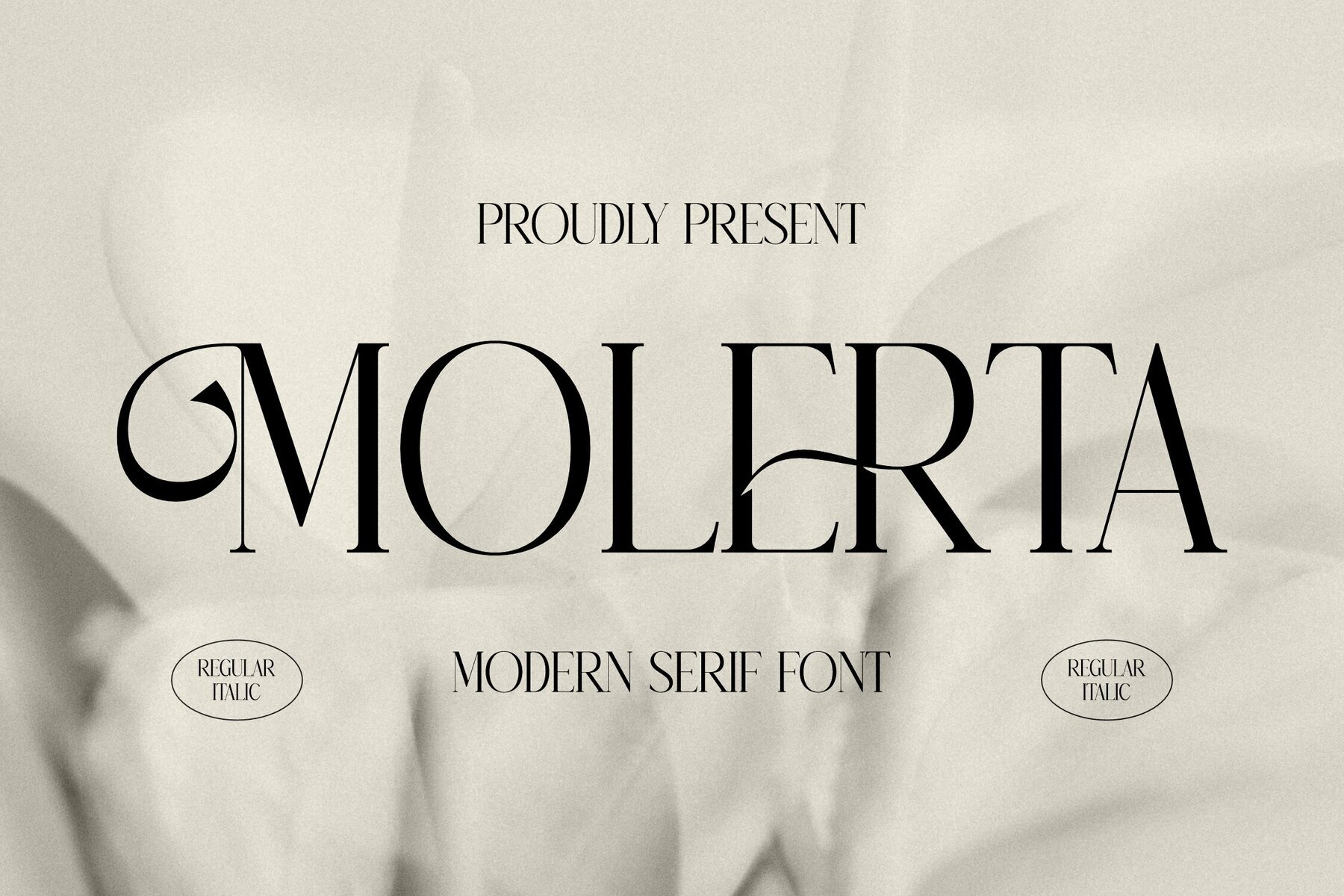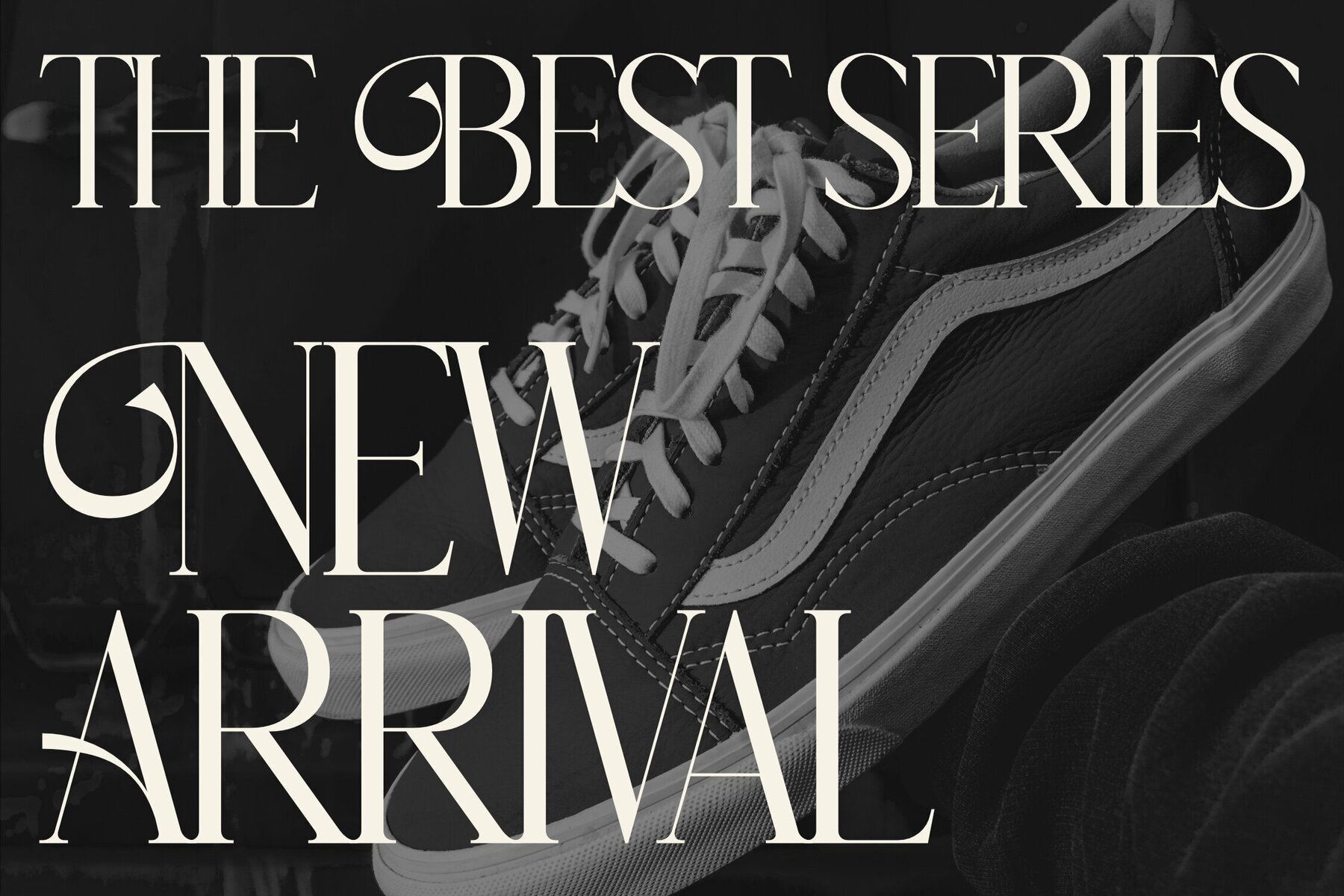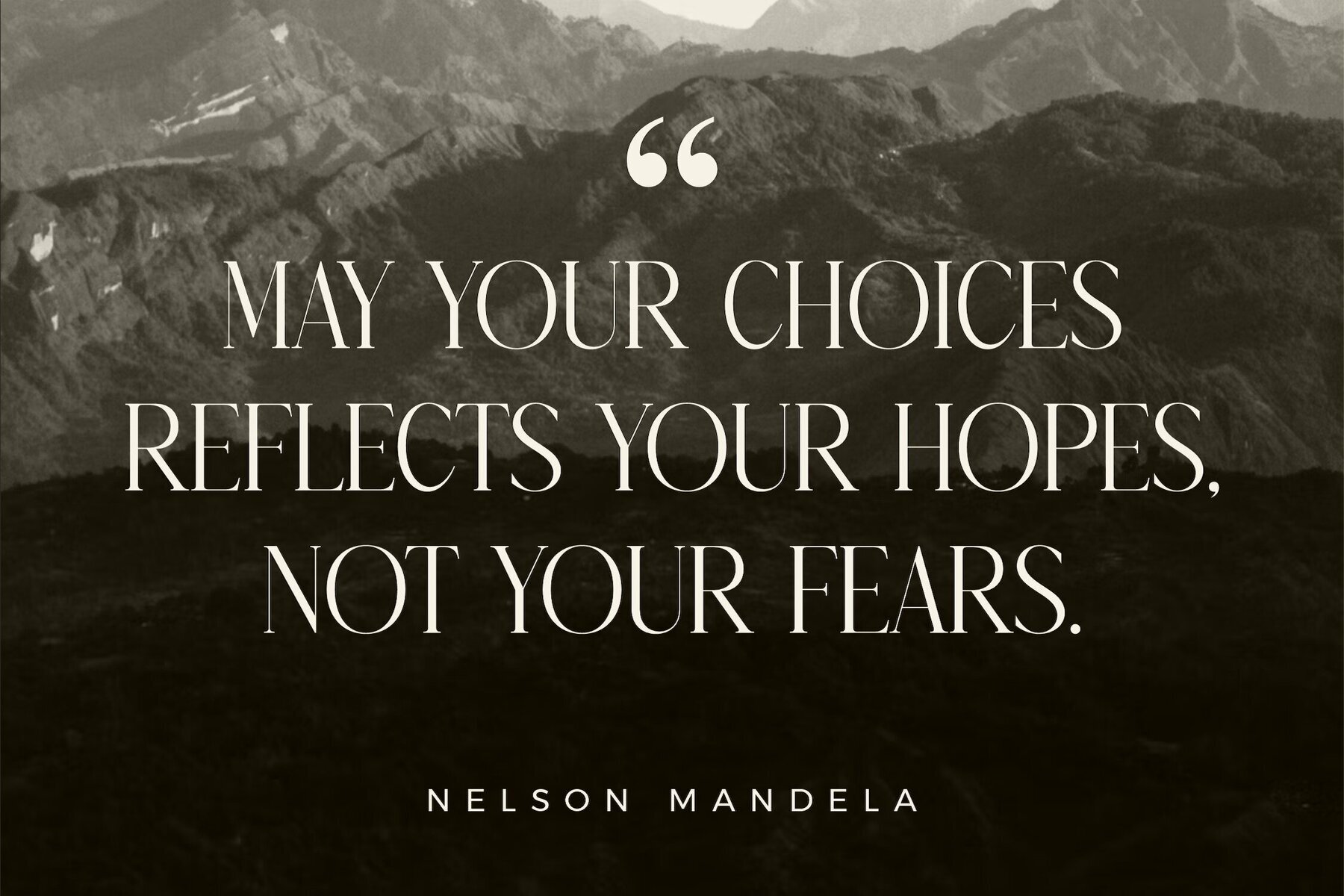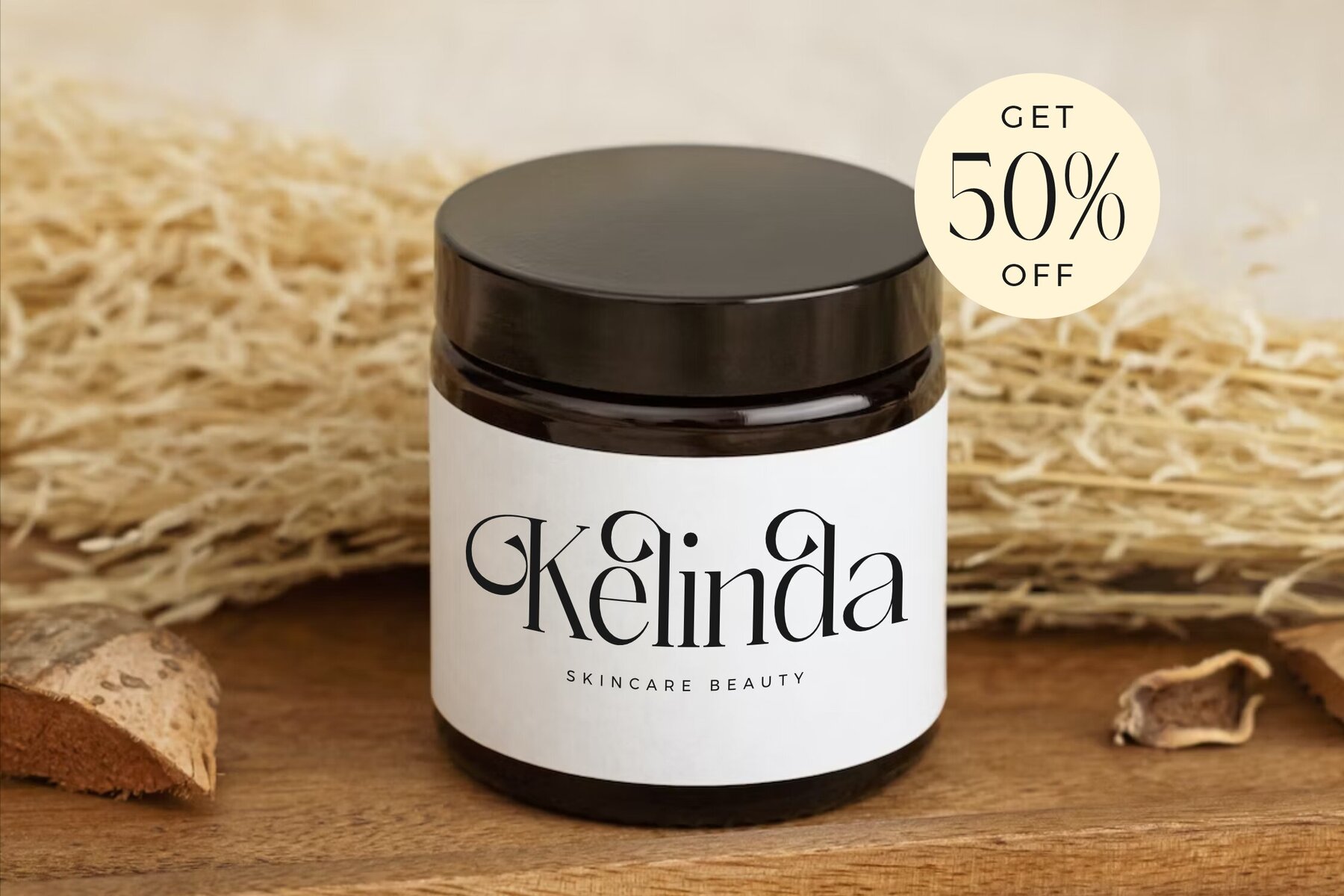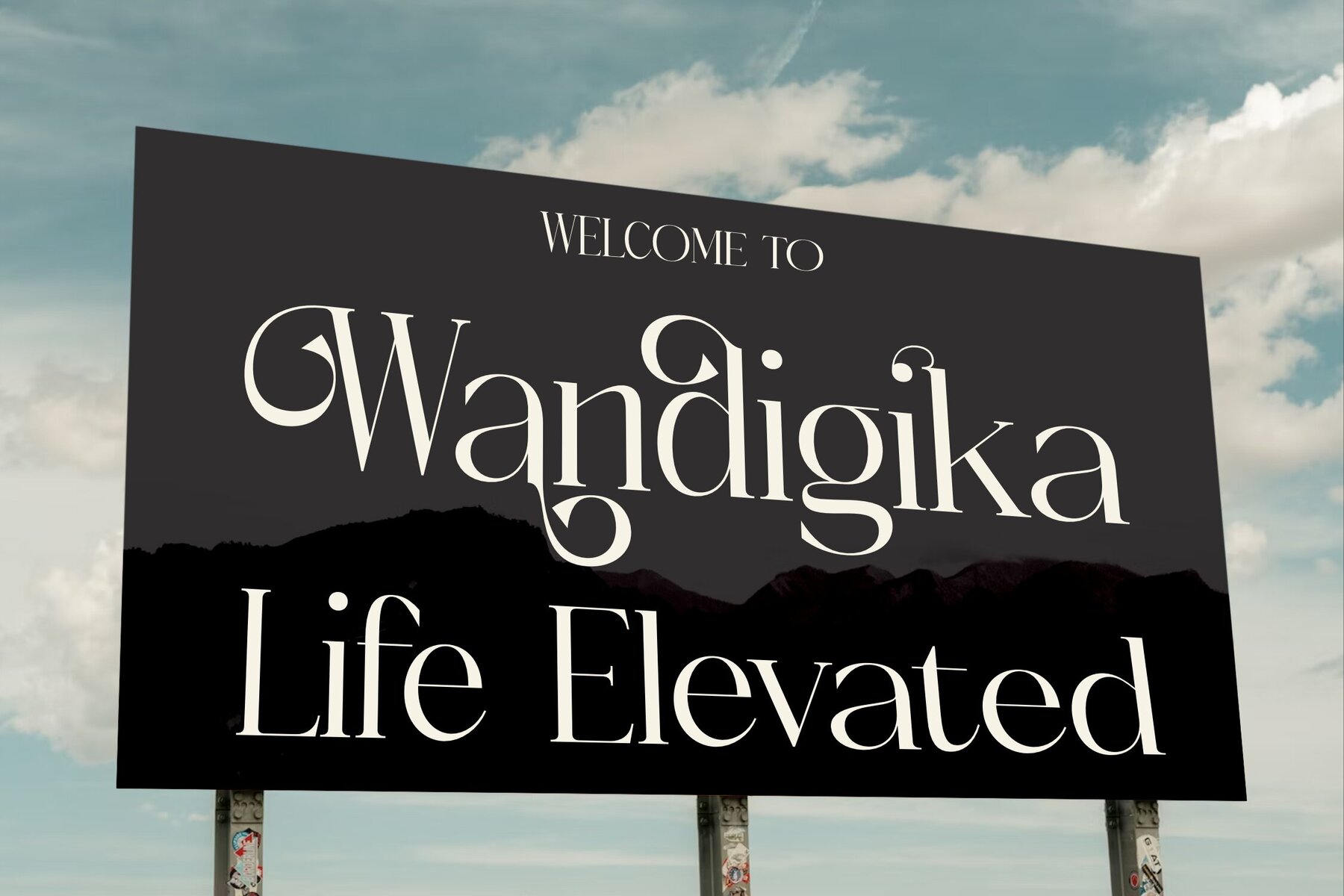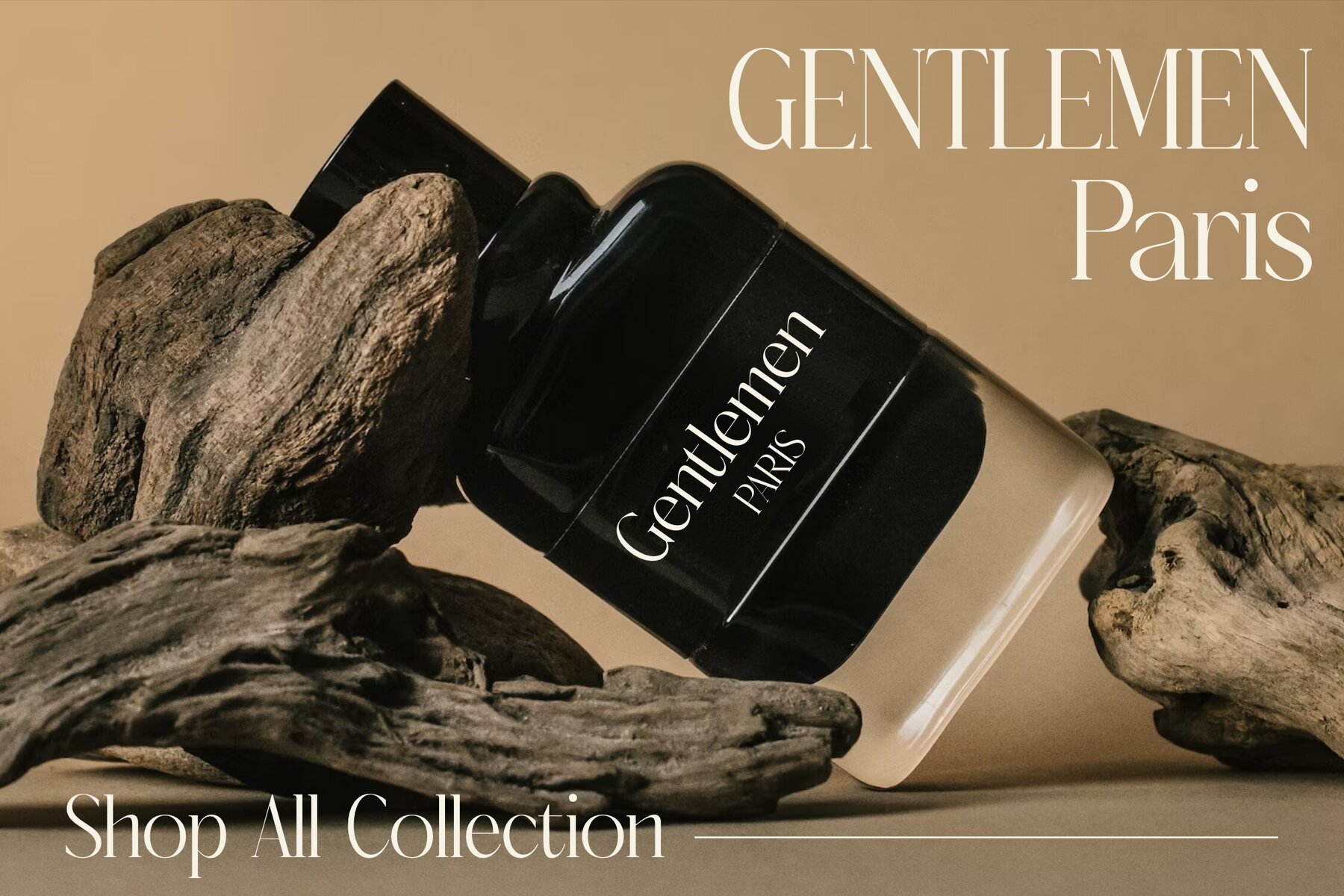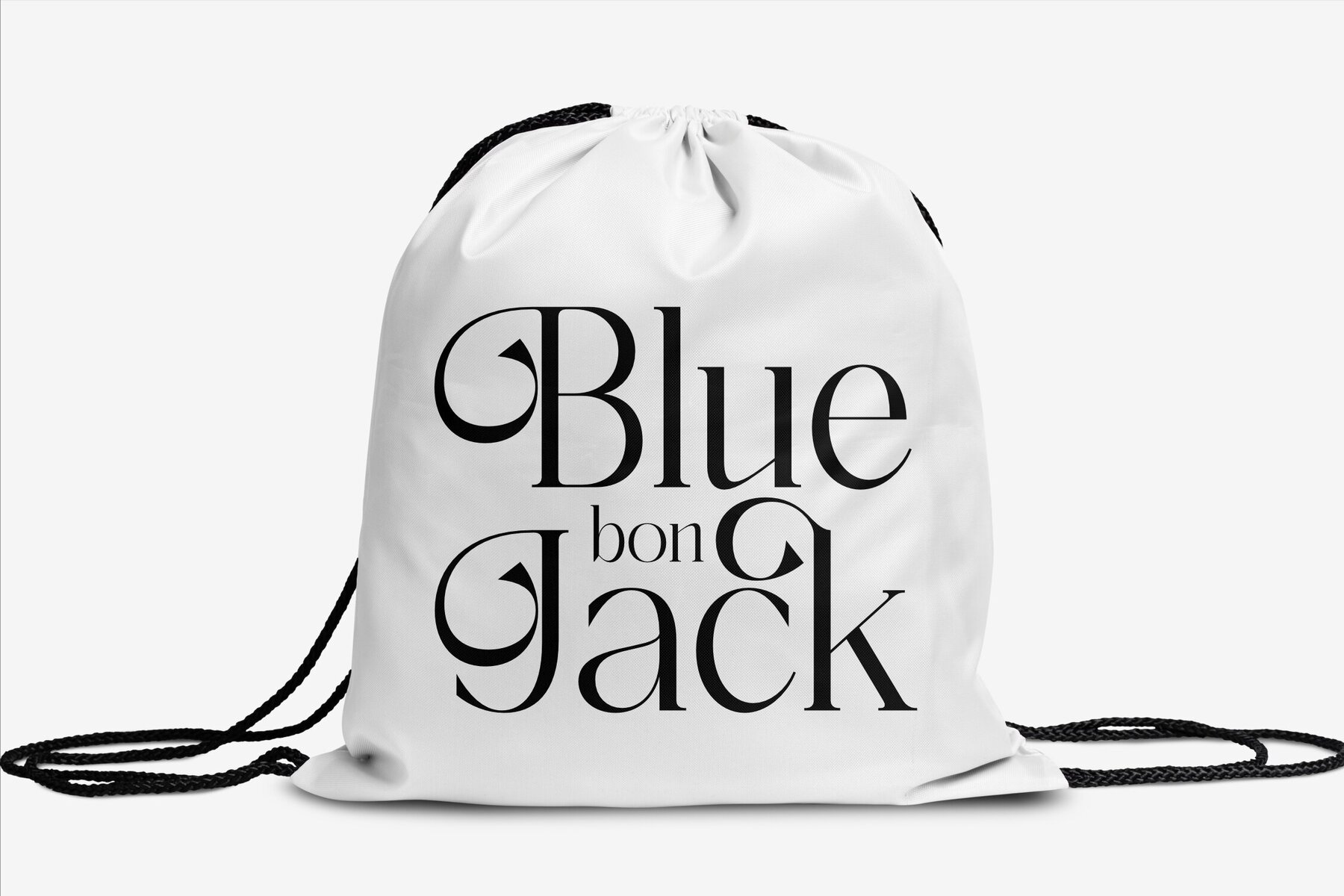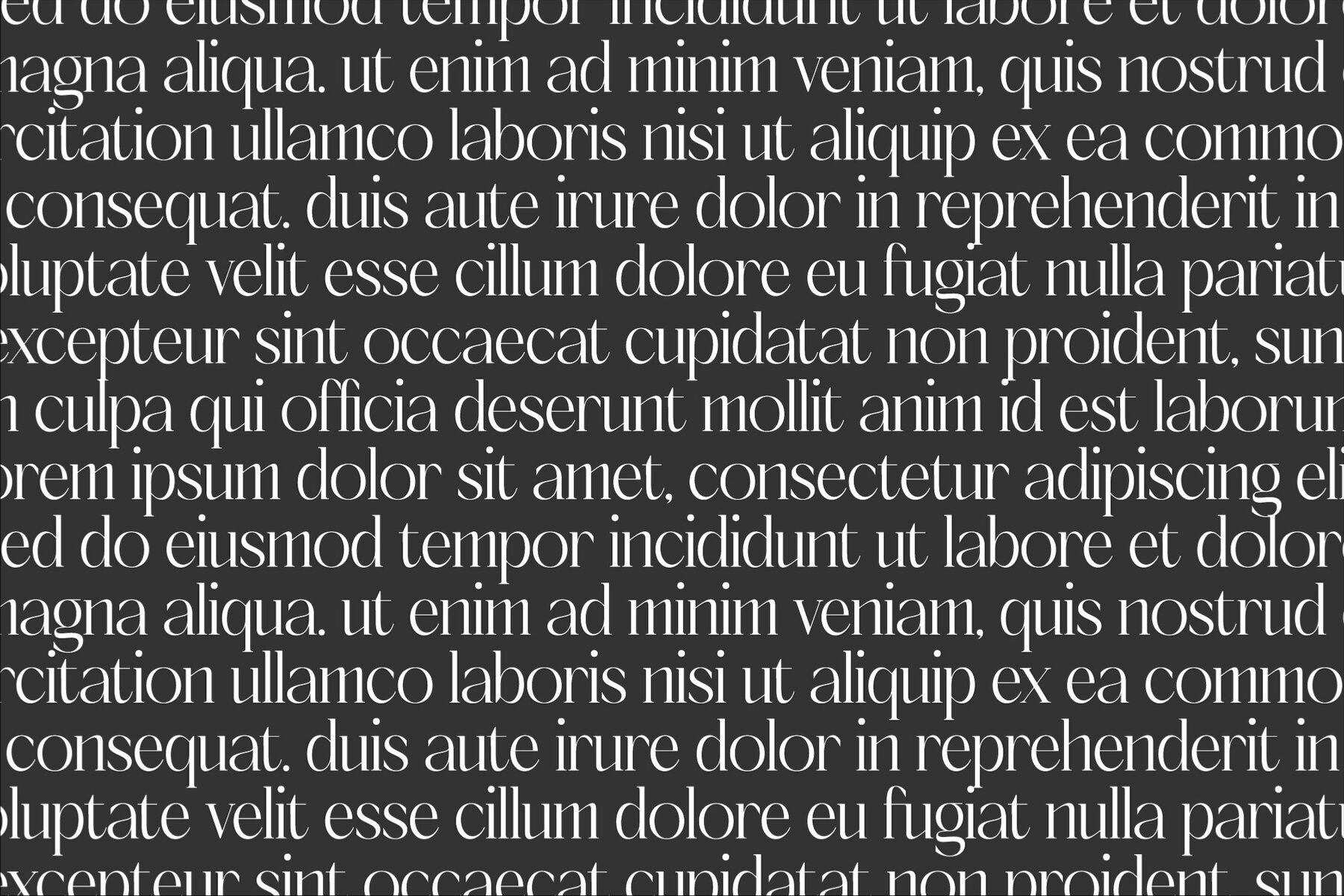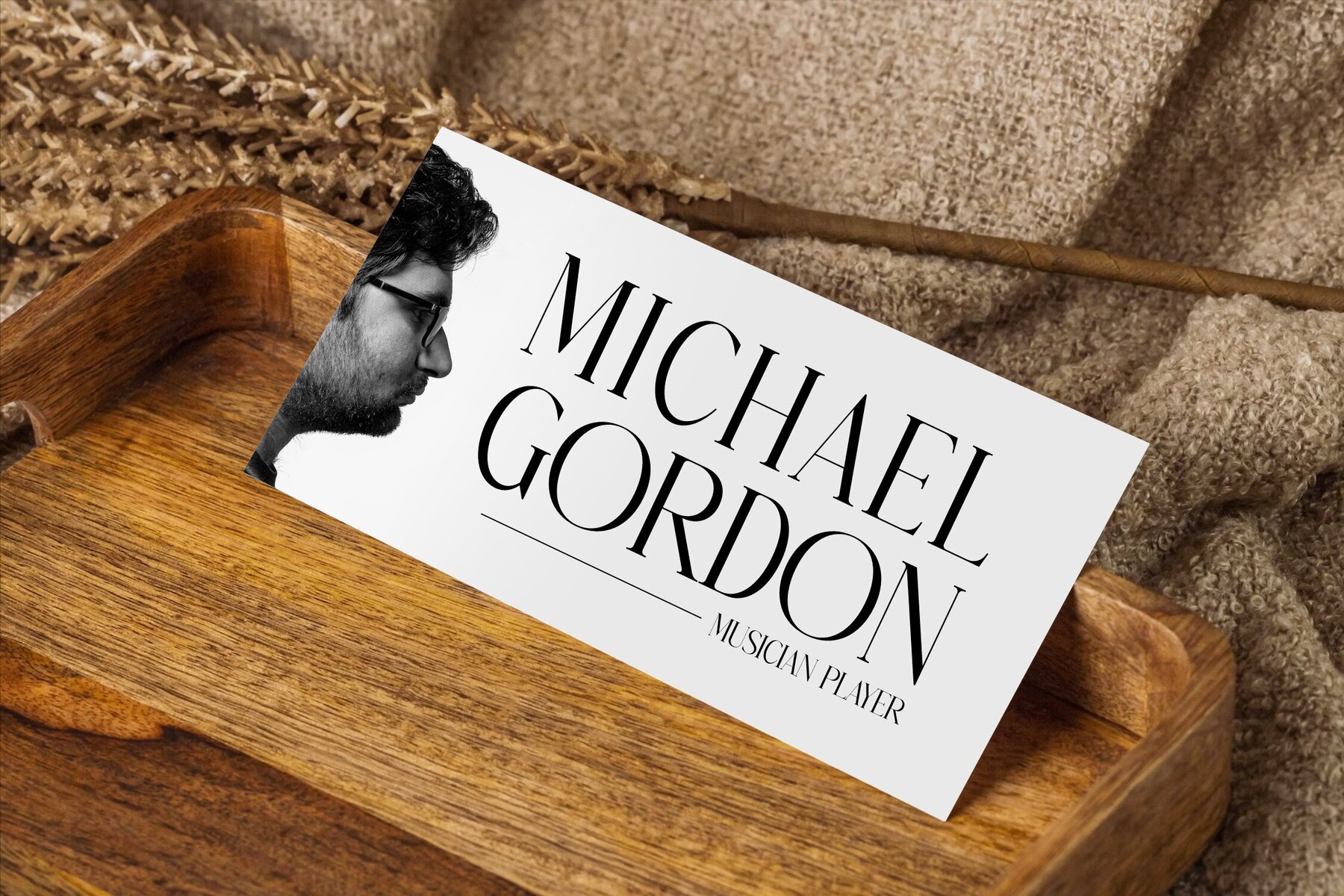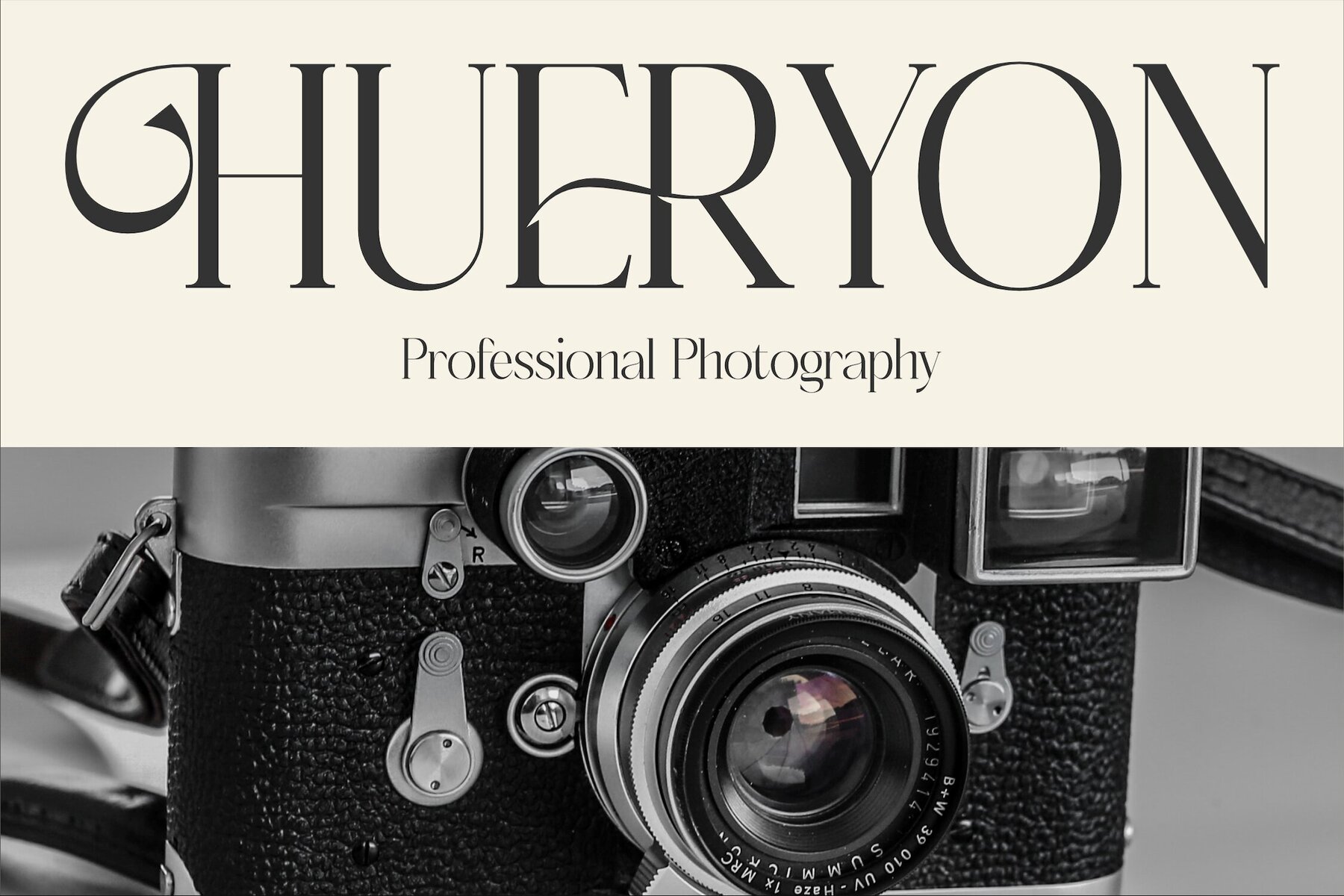
Molerta Font
Molerta Regular
Molerta Italic
Introducing Molerta, a modern yet classic serif typeface crafted by Storytype Studio. Its unique style and contemporary appeal make it the perfect choice for creating luxury logos, sophisticated book or movie titles, and branding for high-end fashion labels. Whether designing for magazines, clothing lines, or inspiring quotes, Molerta provides versatility and refinement.Molerta Typeface: Elegance in Design